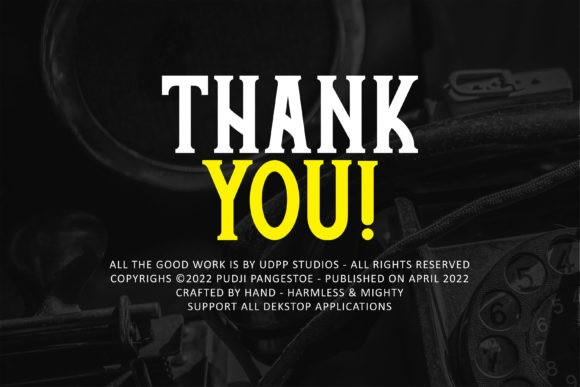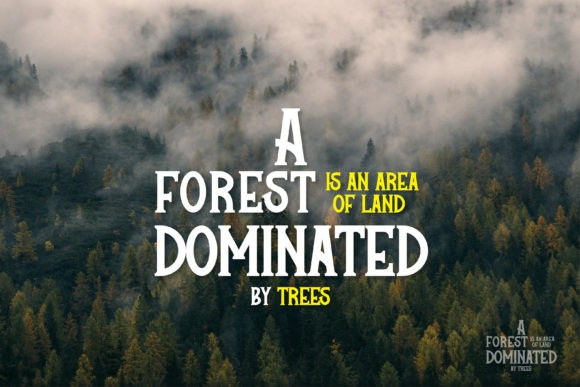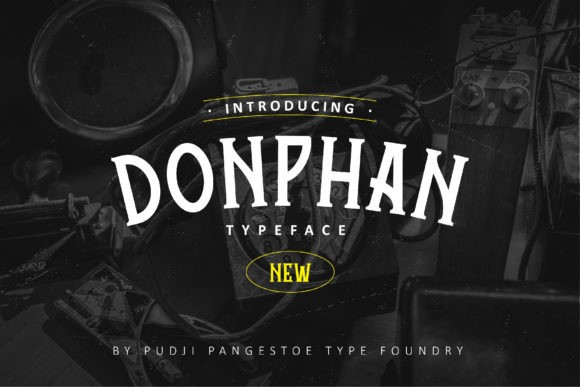
Donphan Font
Donphan is a retro display font that is well-produced by hand and features a clean form. It will be best when used in any placement like logo, poster, t-shirts, or any display idea.